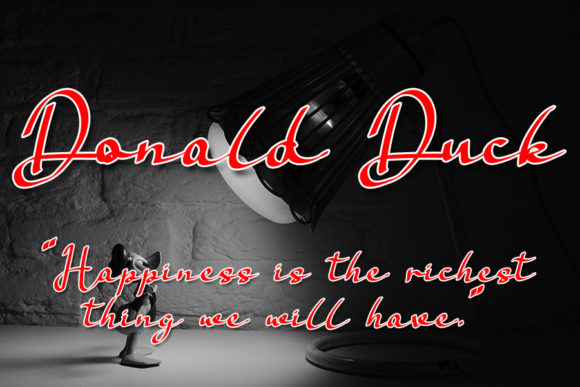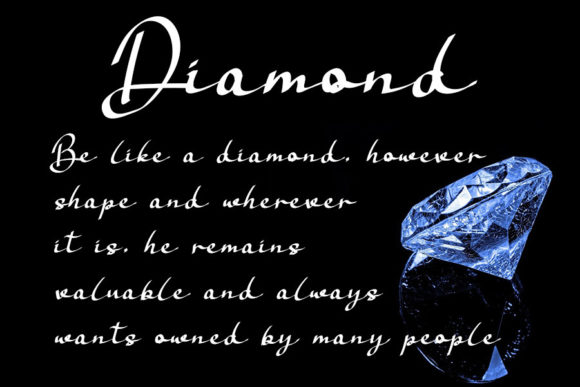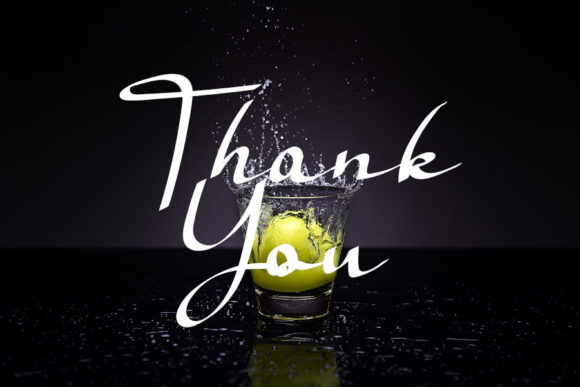
Introducing Beauty Girl Font: The Epitome of Elegance and Sophistication
In the realm of typography, few fonts manage to convey the essence of elegance and sophistication as effortlessly as the Beauty Girl Font. This cursive, refined script font has been meticulously designed to bring a touch of luxury and refinement to any project it is a part of. Whether you’re a designer looking to elevate your branding, a crafty individual working on a DIY project, or a business owner aiming to make a statement with your marketing materials, Beauty Girl Font is an exceptional choice.
The Characteristics of Beauty Girl Font
Beauty Girl Font stands out due to its inherent characteristics that set it apart from more common fonts. Here are some of its key features:
- Cursive and Refined: The font boasts a cursive design that flows smoothly, providing a sense of continuity and harmony. Its refined nature ensures that it looks polished and high-end.
- Sophistication and Elegance: The overall design exudes a sense of sophistication and elegance, making it perfect for projects that require a touch of class.
- Stylish Alternates and Ligatures: One of the standout features of Beauty Girl Font is its inclusion of stylish alternates and ligatures. These features allow for a high degree of customization, enabling designers to add unique touches to their work.
Applications of Beauty Girl Font
The versatility of Beauty Girl Font is one of its most compelling attributes. Its applications span a wide range of projects and industries, including:
- Branding and Logo Design: For businesses looking to establish a luxurious or elegant brand identity, Beauty Girl Font can be a valuable asset. Its sophisticated appearance can help convey the desired message effectively.
- Wedding and Event Stationery: The font’s elegant nature makes it an excellent choice for wedding invitations, event programs, and other related stationery.
- Packaging Design: For products that aim to convey a sense of luxury or high-end quality, Beauty Girl Font can be used to create stunning packaging that stands out.
- Digital Media: Whether it’s for website headers, social media graphics, or digital advertising, the font’s clear and refined appearance ensures it works well in digital formats.
Why Choose Beauty Girl Font?
With so many fonts available, what makes Beauty Girl Font a preferred choice for designers and crafters? Here are a few reasons:
- Uniqueness: While there are many script fonts out there, Beauty Girl Font’s unique blend of elegance and modernity sets it apart.
- Versatility: Its wide range of applications makes it a versatile addition to any designer’s toolkit.
- Easy to Read: Despite its elegant and cursive nature, the font remains highly legible, making it suitable for both headings and body text.
Tips for Using Beauty Girl Font Effectively
To make the most out of Beauty Girl Font, consider the following tips:
- Pair it Wisely: When pairing Beauty Girl Font with other fonts, opt for simple and clean fonts that complement its elegance without overpowering it.
- Adjust Letter Spacing: For optimal readability, especially in longer texts, adjust the letter spacing to ensure it doesn’t appear too cramped.
- Utilize Alternates and Ligatures: Don’t hesitate to experiment with the font’s alternates and ligatures to add personality and uniqueness to your designs.
Beauty Girl Font is more than just a typeface; it’s a design element that can elevate your projects to new heights of elegance and sophistication. With its cursive, refined appearance, stylish alternates, and ligatures, it’s poised to become a favorite among designers and crafters looking to add a touch of luxury to their work. Whether you’re working on a branding project, wedding stationery, or digital media, Beauty Girl Font is an excellent choice that promises to deliver results that are both visually stunning and effectively communicative.